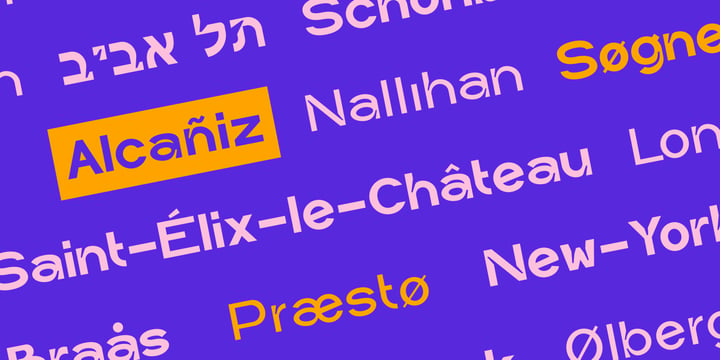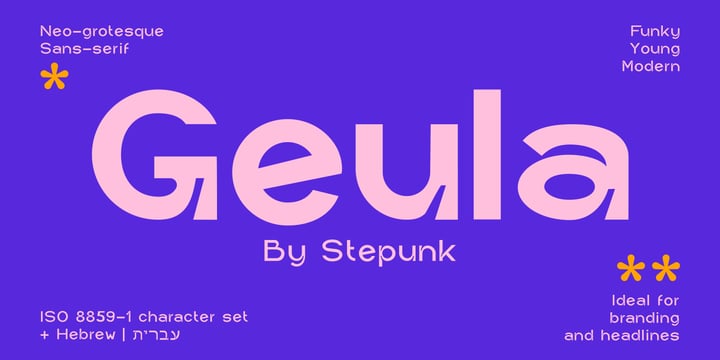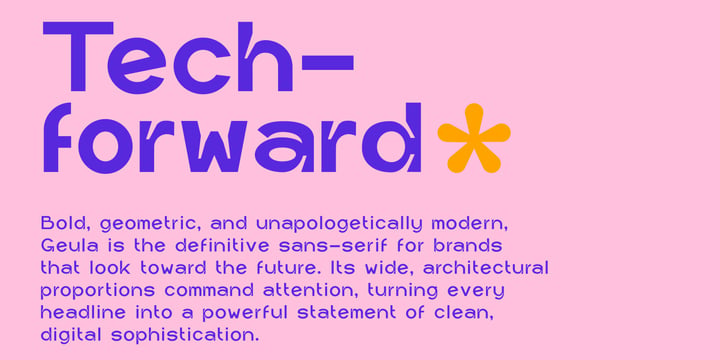
Stepan Kazintsev
Stepan Kazintsev is a type and brand designer with a diverse range of interests within the graphic design field. He combines a passion for type design with extensive experience in branding and typography.
In 2023, Stepan graduated Summa Cum Laude from the University of Nicosia (Cyprus), Graphic and Digital Design course. During his studies there, he became proficient in the full Adobe Creative Suite, Figma, and learned the basics of typography. Afterwards, he decided to enrich his knowledge by self-education and covered the use of FontForge software.
Most of his career, Stepan worked as a brand and logo designer, while typeface design was always a side hobby and a great passion of his. During his studies at the University of Nicosia, he designed his first experimental typefaces: “Innsmouth” and “October”. The last one was presented as a final graduation project and was marked with the highest score by the lecturers. After the graduation, Stepan designed “Geula”, “Rosephina”, and “Unboxa”, as part of his self-education using “FontForge” software.
Stepan’s design philosophy can be described as an art of creating typefaces as self-sufficient, outstanding products with their own brand identity and scent. Every typeface is being treated as if it were a living person with its own unique character and posture. Apart from that, quality is another big focus in the designer’s work. Every typeface goes through three or four phases of pixel-perfect quality control tests in order to enhance maximum legibility.
Stepan mainly specializes on designing the display typefaces, but is eager to experiment on text typefaces for web as well as for printed media.
He mainly creates his typefaces using Adobe Creative Suite (Adobe Illustrator in particular) and FontForge software.